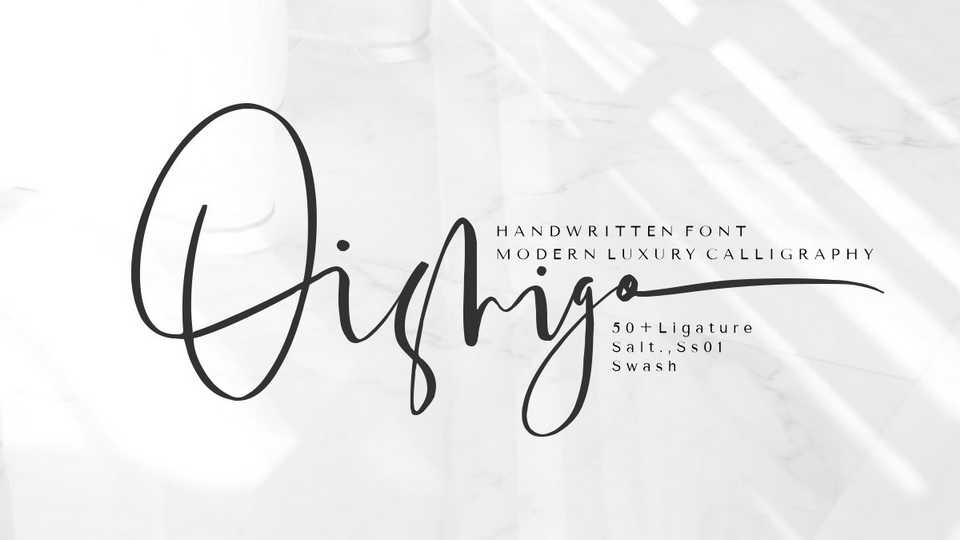
Download Oishigo font, a freeform handwritten typeface. Oishigo has a tail that goes up and down randomly which makes this font look different and beautiful.